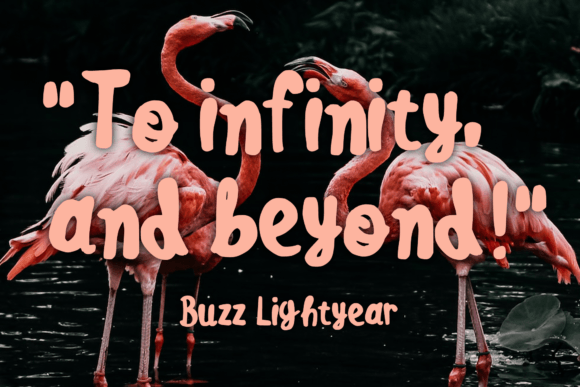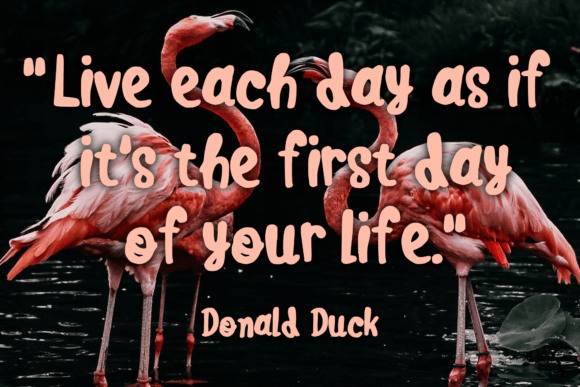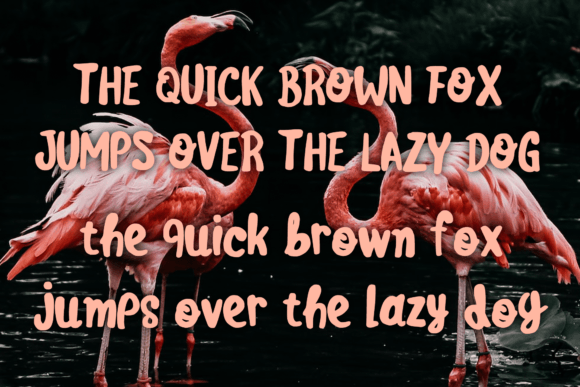
Cute Flamingo Font
About Cute Flamingo Font
A Fun Font for Lighthearted Designs
If you’re searching for a cheerful, playful typeface, the Cute Flamingo font download is just what you need. This handwritten font brings a touch of whimsy to any design. Its casual strokes and charming feel make it perfect for a wide range of fun projects.
Versatile and Easy to Use
Whether you’re crafting for kids or creating lighthearted merchandise, this font fits the bill. It works wonderfully for:
• T-shirt designs and stickers
• Children’s books and school worksheets
• Greeting cards and gift tags
• Social media posts and posters
Its clean and cute style ensures your message stays clear while adding personality to your work.
Add a Playful Vibe to Your Designs
Because of its flexible nature, Cute Flamingo adapts well to various themes and formats. You’ll find it useful for both digital and print projects where you want to maintain a friendly tone.